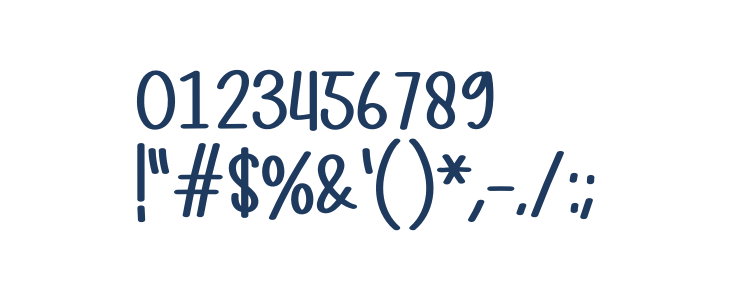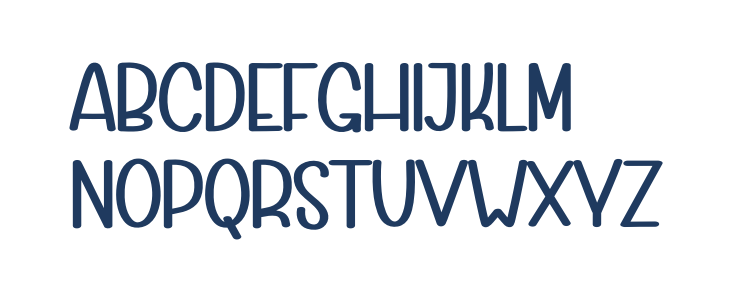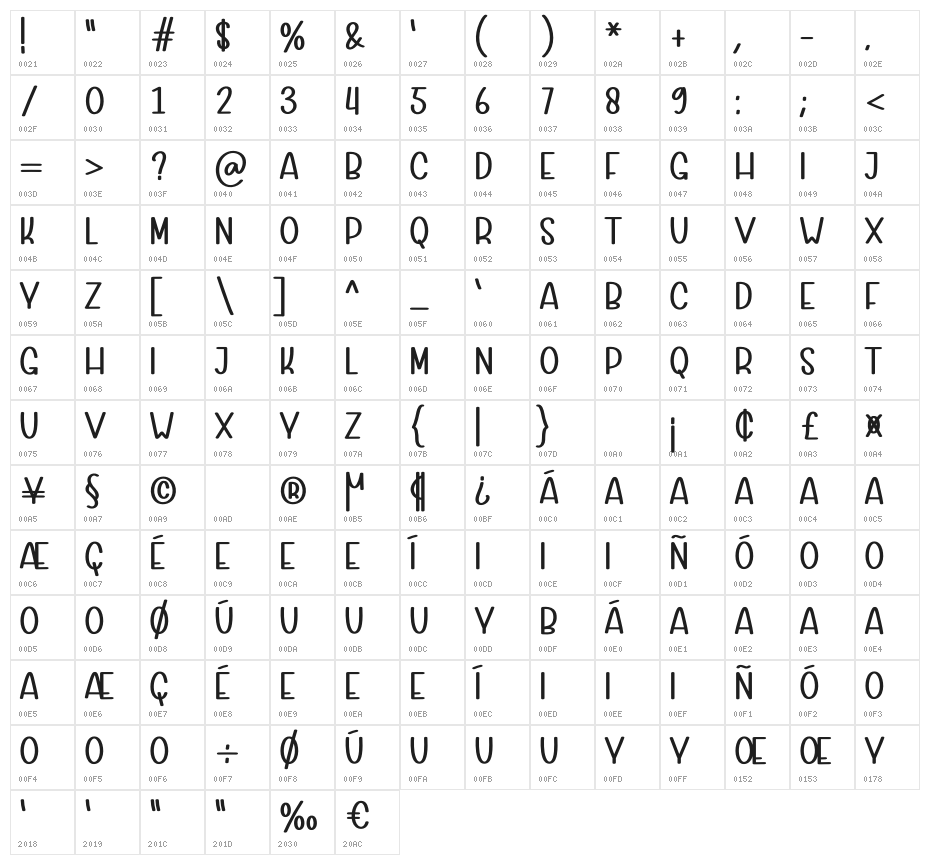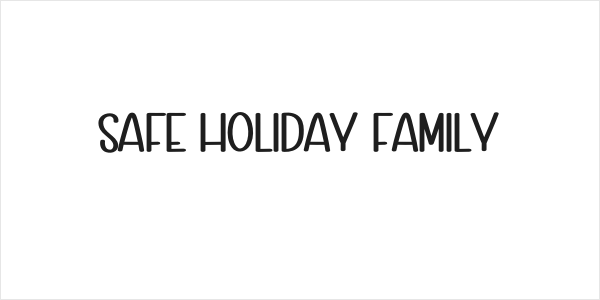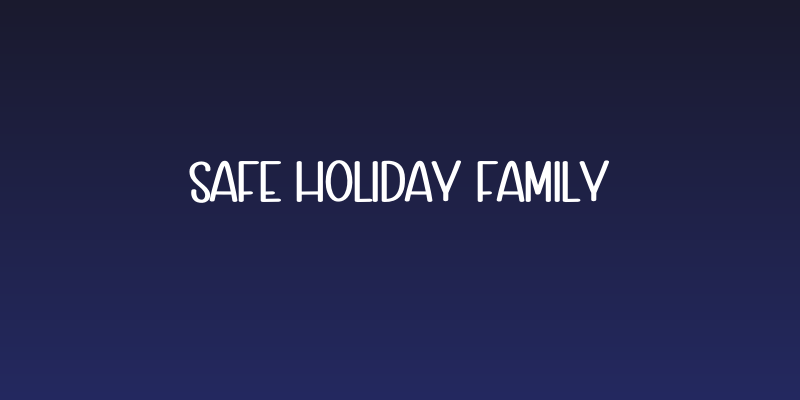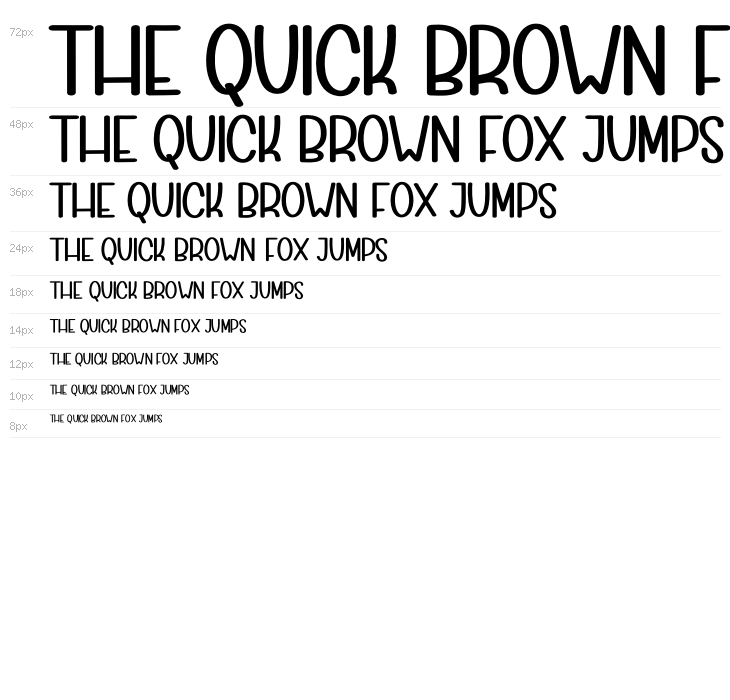
Safe Holiday Family Font
Safe Holiday Family Description
A playful, rounded sans-serif font with uniform stroke width, tall x-height, and slightly condensed letterforms. The characters have a handwritten, casual appearance with smooth curves and open counters, making the text feel friendly and approachable.
| Overall Style | Playful, Casual, Friendly |
| Use Case | Headlines, Posters, Invitations, Informal Branding |
| Proposed Projects | ChildrenΓ’β¬β’s books, greeting cards, posters, informal branding, social media graphics. |